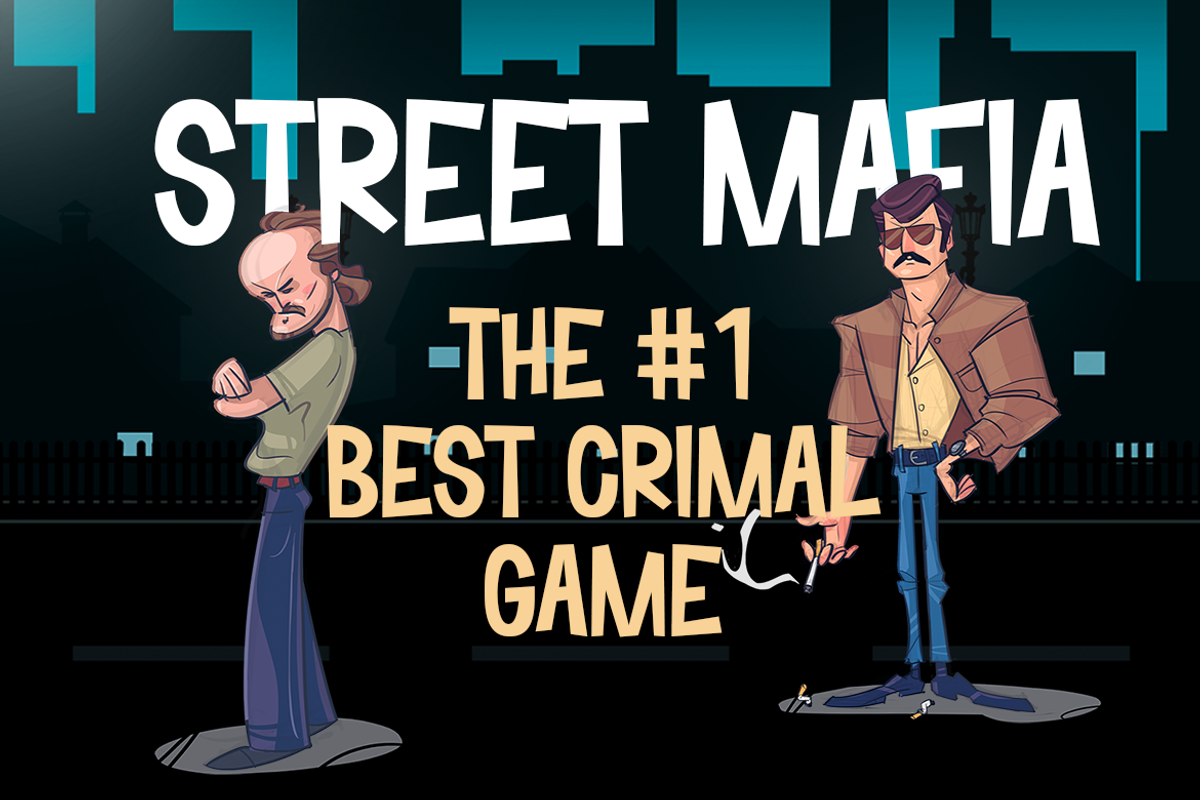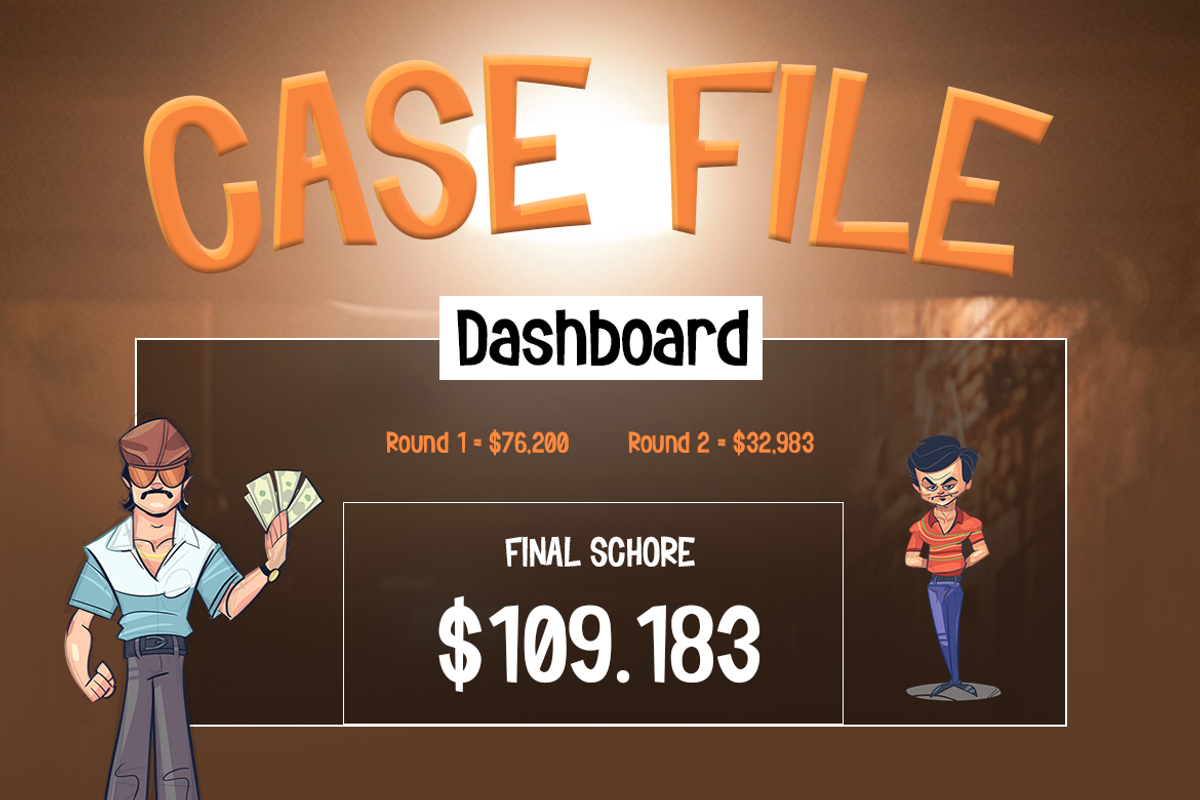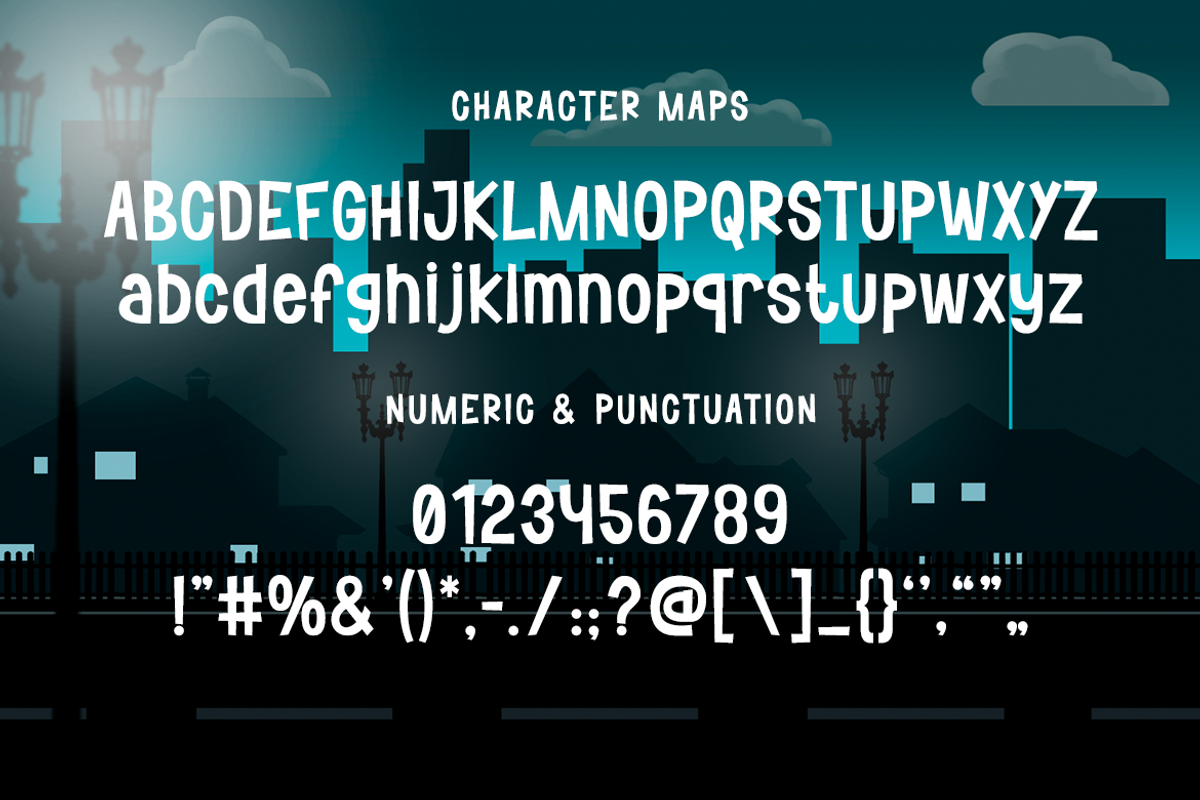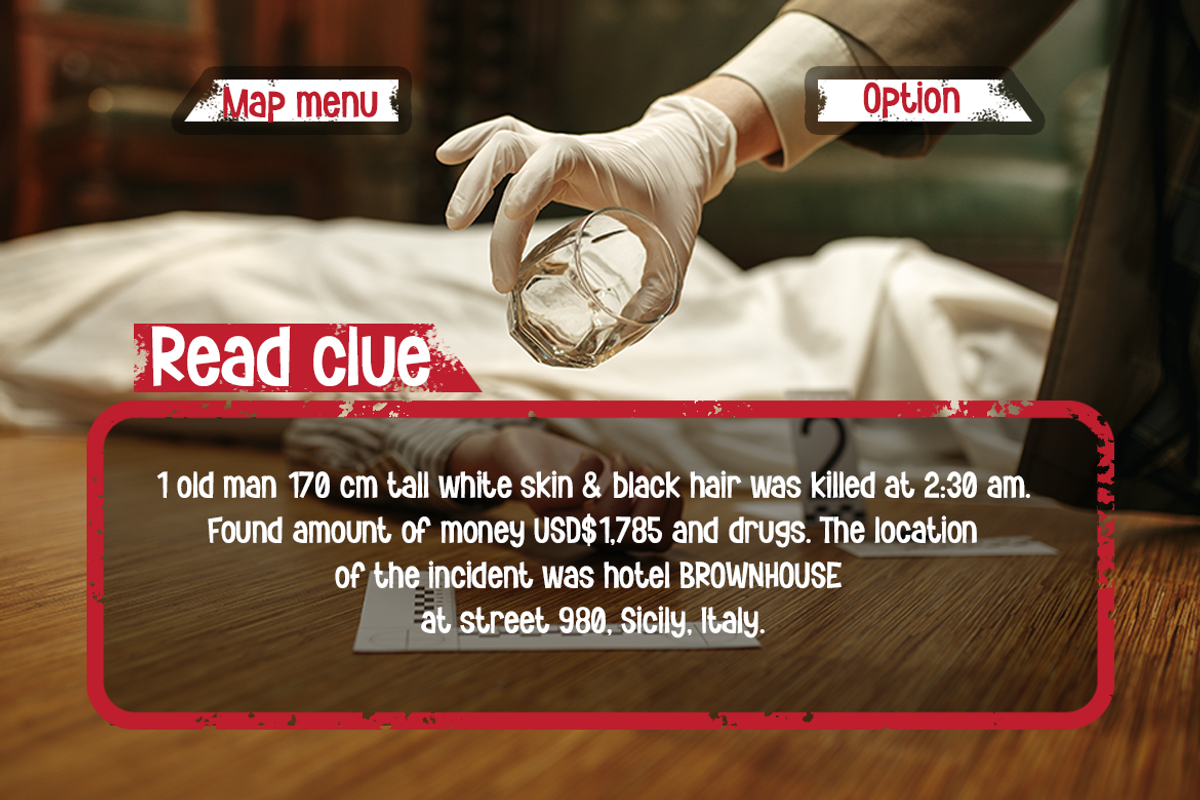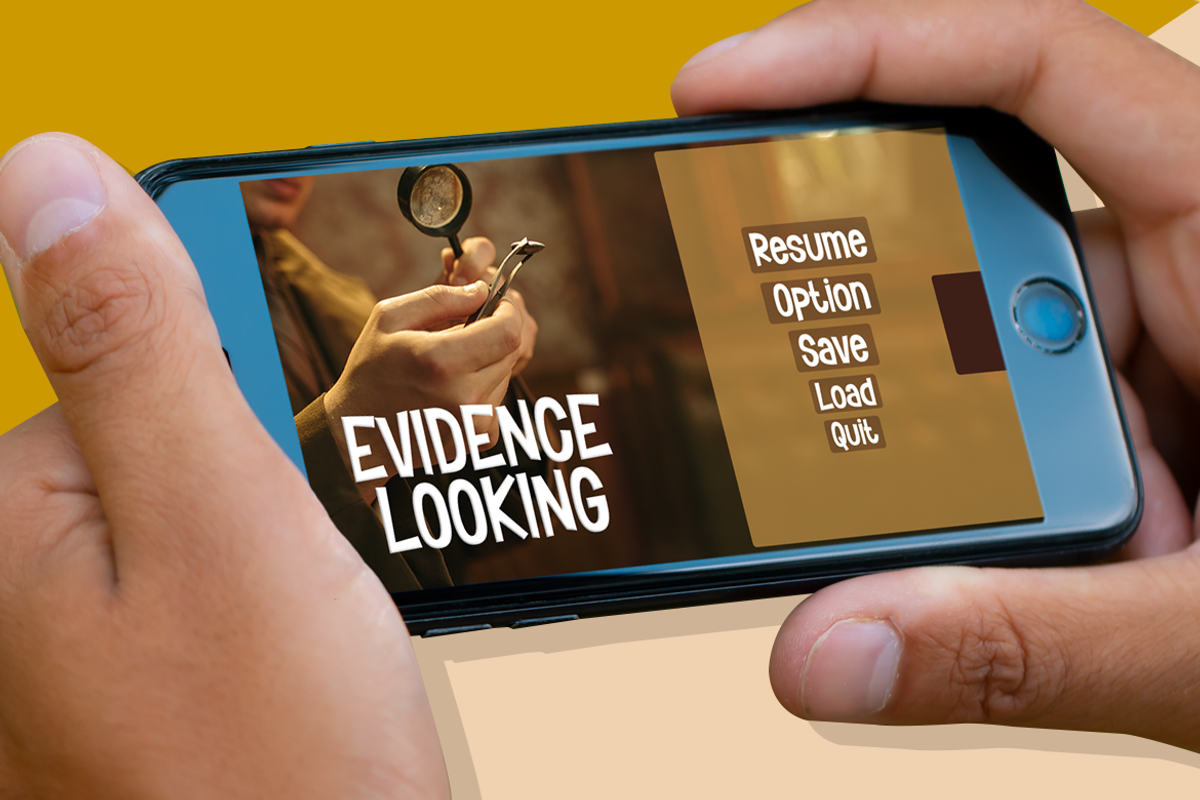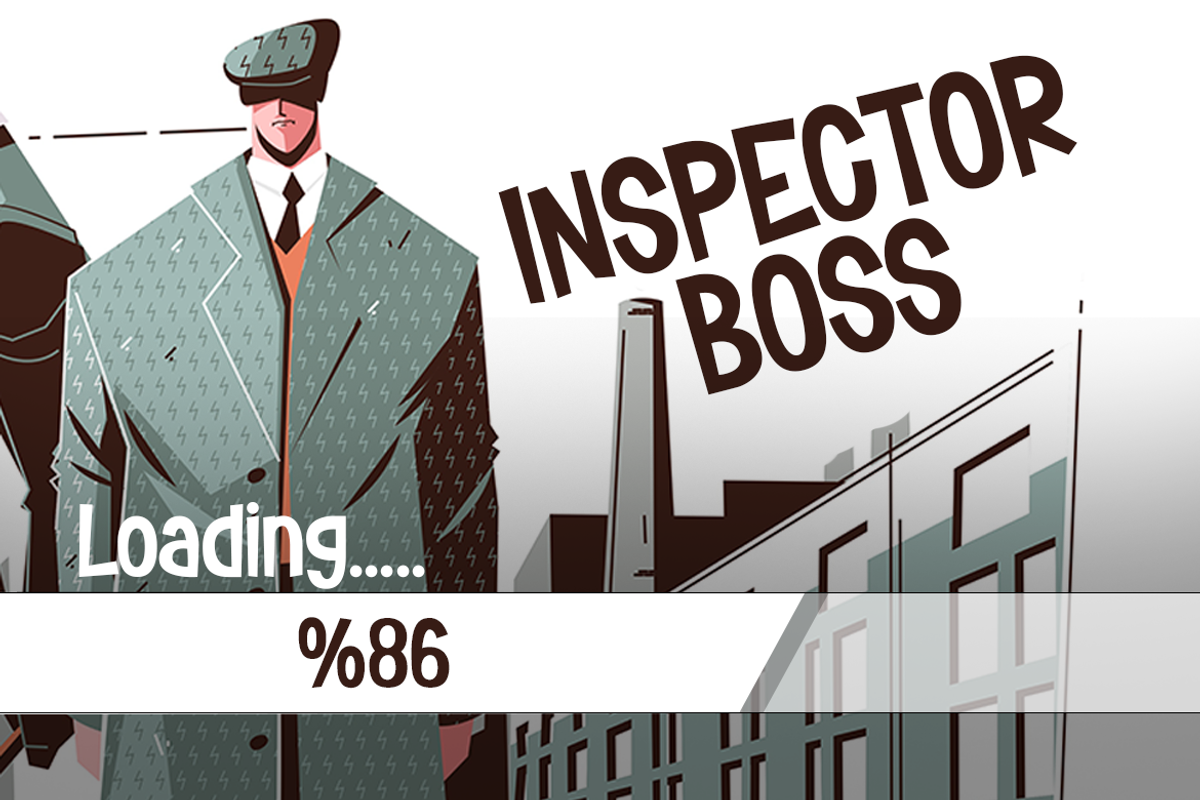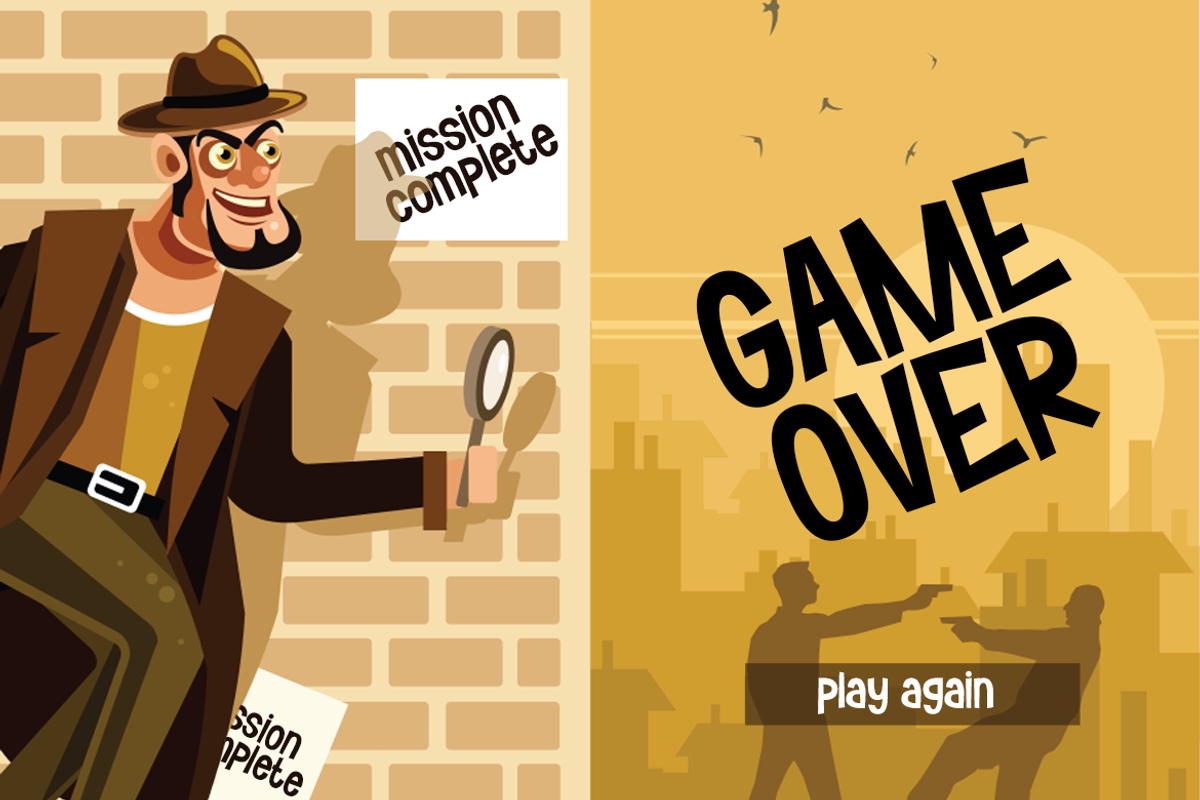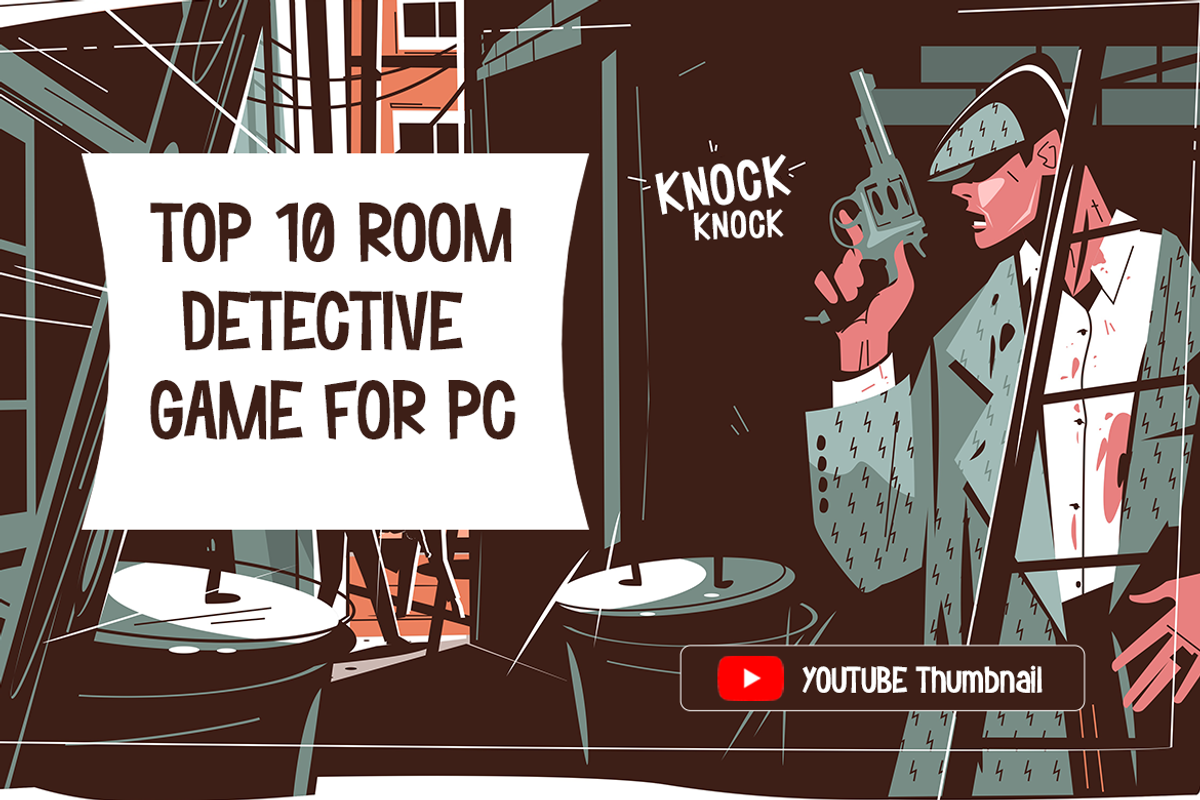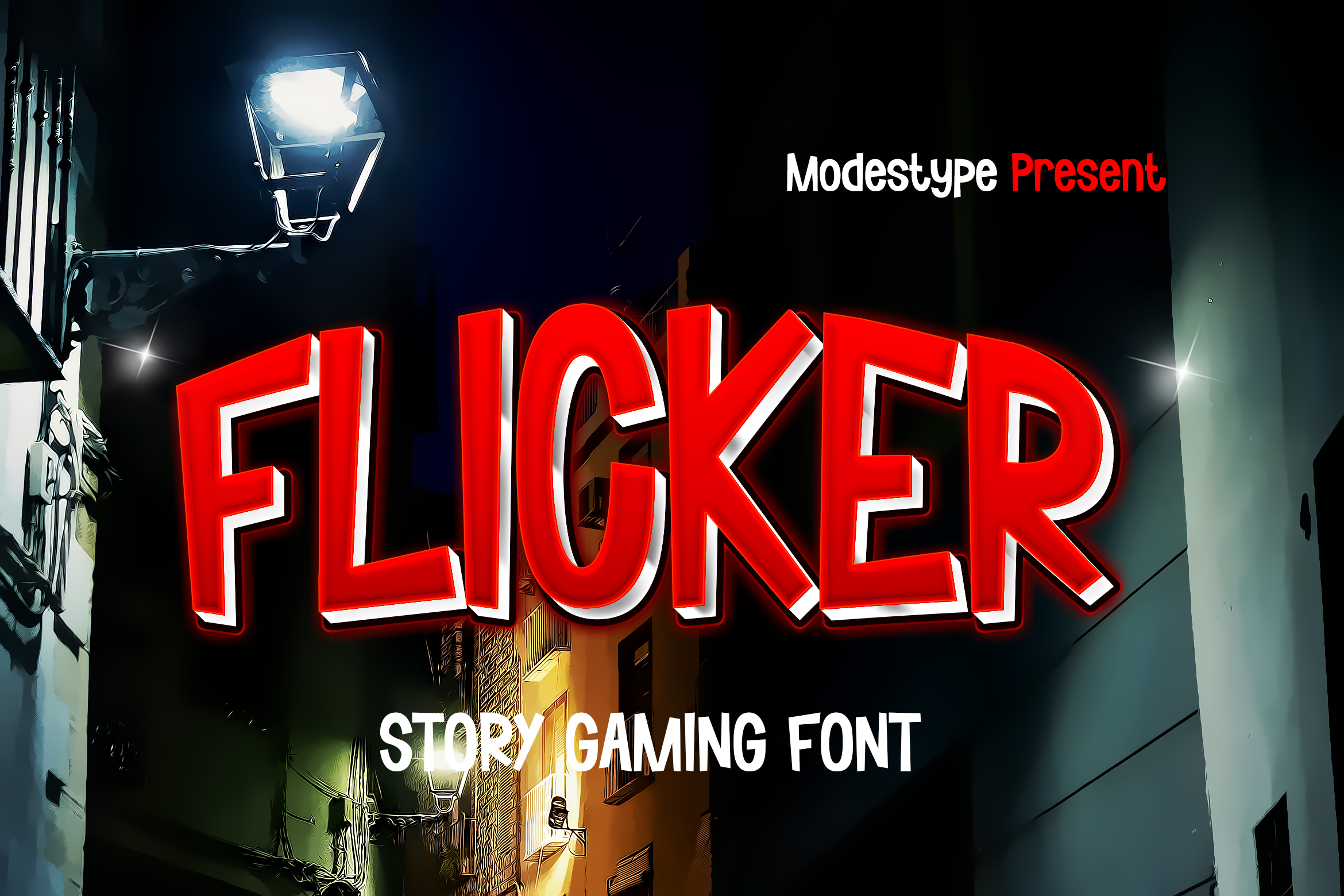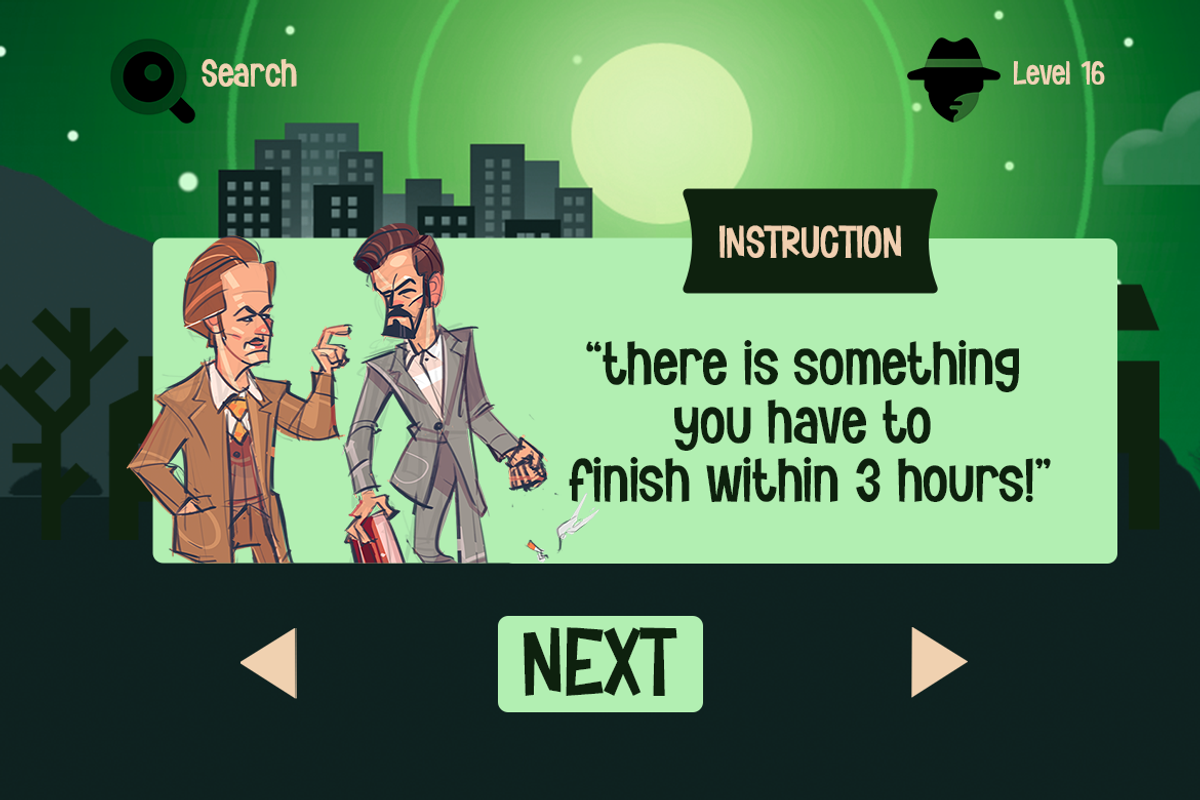
Flicker - Story Gaming Font
Flicker – Story Gaming Font
Sounds like a mystery, feels like a mystery, and written like a mystery as well. This Flicker is what happen when the murderer suspect entering the alley, all light go flick and then BOOM ! case unsolved !